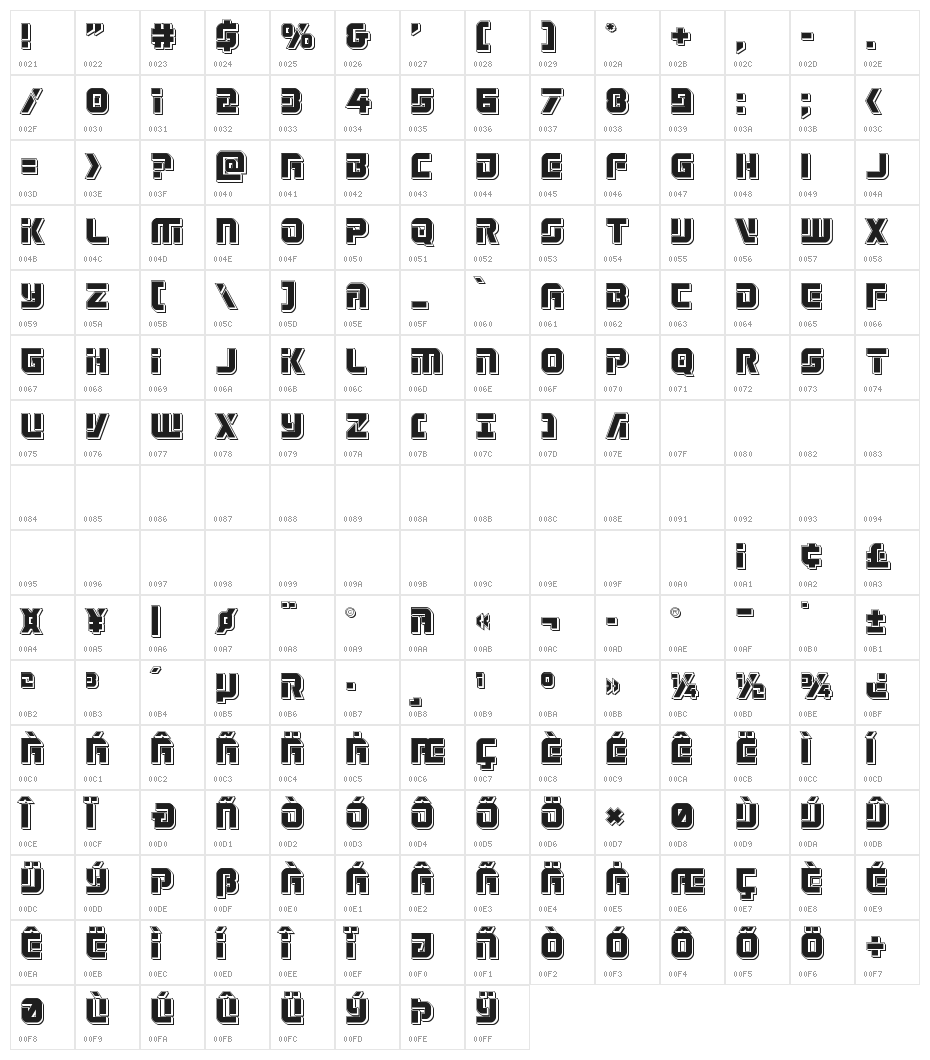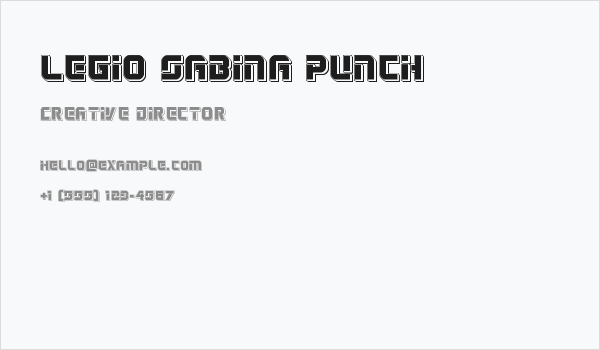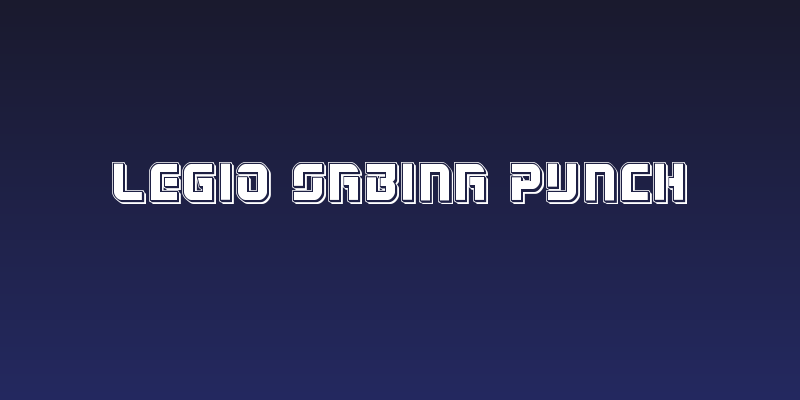
Legio Sabina Punch Font
Legio Sabina Punch Description
This font features a bold, geometric design with a strong, impactful presence. The characters are constructed with thick, uniform strokes and a distinct outline that adds depth and dimension. The angular, block-like shapes give it a futuristic and industrial feel, making it stand out in any design. The uppercase and lowercase letters maintain a consistent style, ensuring readability while adding a unique flair. The numbers and special characters are designed to match the boldness and geometric nature of the alphabet, providing a cohesive look across all elements.
| Proposed Projects | Ideal for branding, posters, video game graphics, and any project requiring a strong, modern aesthetic. |